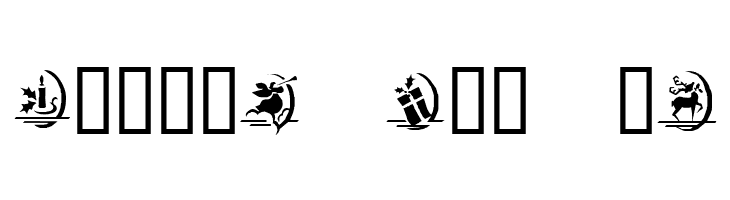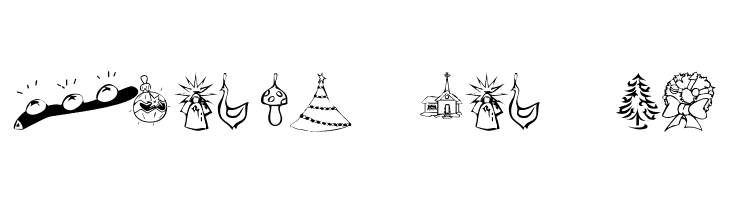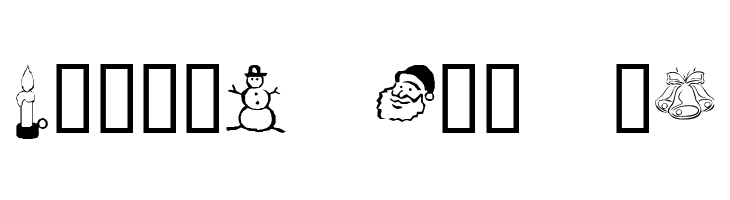
A festive collection of Christmas-themed dingbats perfect for holiday projects.
A decorative font with Christmas-themed illustrations, perfect for festive projects.
Hand-drawn Christmas dingbat font with festive icons.
A decorative dingbat font with Christmas-themed icons in a circular design.
A decorative font with Christmas-themed icons in a circular motif.
A festive decorative font with Christmas-themed icons.